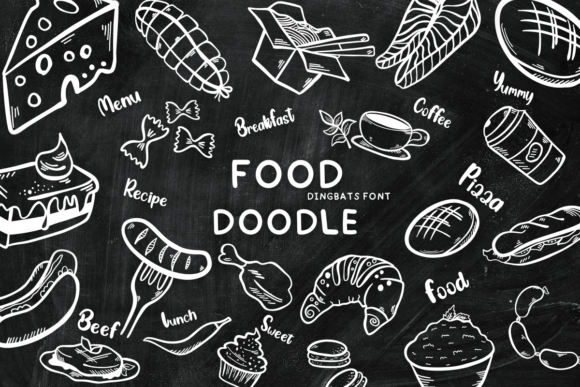
Bring Your Creative Vision to Life with the Food Doodle Font
Who hasn’t been stuck in a creative rut, staring blankly at a blank page or canvas, waiting for inspiration to strike? For designers, artists, and crafty folks, the pressure to come up with something unique and eye-catching can be overwhelming. But what if you had the perfect tool to help spark your creativity and bring your ideas to life?
Enter the Food Doodle Font, a charming dingbats font with a sketched style that’s perfect for adding a personal touch to your creative projects. From wedding invitations to DIY crafts and decorations, this versatile font can help you create one-of-a-kind designs that reflect your personality and style. Whether you’re a seasoned designer or a crafty hobbyist, the Food Doodle Font is a valuable addition to your toolkit, offering endless possibilities for creative expression.
Key Features of Food Doodle Font
- Unique Hand-Drawn Design: The Food Doodle Font features a unique, hand-drawn design that captures the essence of doodles and sketches, perfect for adding a personal touch to food-related designs.
- Multi-Lingual Support: The font supports multiple languages, including English, Spanish, French, German, Italian, Portuguese, and more, making it a versatile choice for international food brands and businesses.
- High-Resolution Graphics: The font includes high-resolution graphics, perfect for printing and digital use, with a resolution of 300 DPI (dots per inch).
- Size Range: The font includes a range of sizes, from 8 to 72 points, allowing for flexibility in design and layout.
- Customizable: The font is fully customizable, allowing designers to adjust the color, size, and style of the doodles to suit their specific needs.
Food Doodle Font Review
I recently had the chance to work with the Food Doodle Font, and I wanted to share my honest thoughts on its strengths and weaknesses. Here’s my review.
- The font is highly customizable, allowing for a wide range of colors and styles to suit different designs.
- The doodle elements add a playful touch to the font, making it perfect for creative projects like food blogs or kids’ menus.
- The font is highly legible, even at smaller sizes, which is essential for recipes or nutritional information.
- The font may not be suitable for formal or professional designs, as it’s quite casual and playful.
- The doodle elements can be overwhelming if used excessively, so it’s essential to use them sparingly.
- The font is not ideal for small text sizes, as the doodle elements can become pixelated.
Overall, I think the Food Doodle Font is a great addition to any designer’s toolkit. While it may have some limitations, its customizability and playful nature make it perfect for creative projects. I would recommend it to designers looking for a fun and engaging font for their food-related designs.
For the most effective use of the Food Doodle Font, consider the following:
- Pair with bright, playful colors to enhance the whimsical feel of the font.
- Use for social media graphics, blog headers, and food-related branding.
- Combine with images of food or cooking-related elements for a cohesive look.
The Food Doodle Font is designed to be used at font sizes ranging from 12px to 48px. Using the font at sizes outside of this range may affect its legibility and overall appearance. Additionally, please note that the font’s doodle style may not be suitable for very small or very large font sizes.